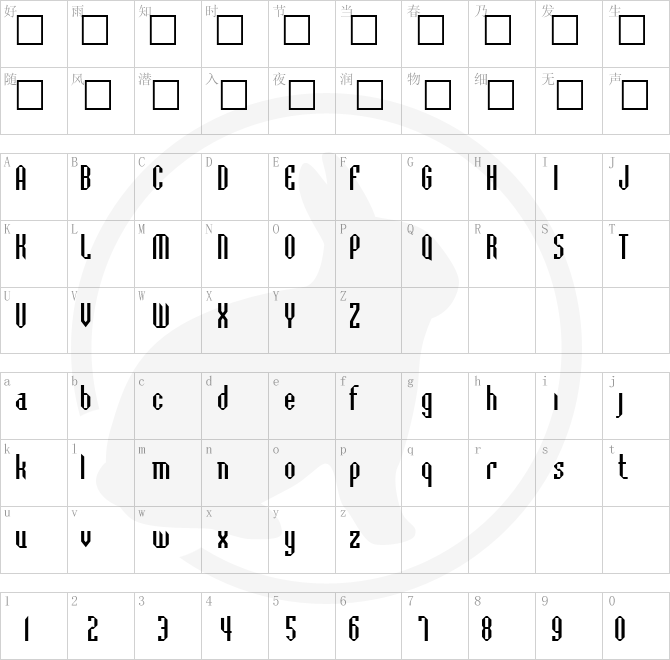
- Font Name:Baccus Bevel
Baccus-Bevel-Regular.ttf is a very beautiful artistic font, Baccus-Bevel-Regular.ttf is widely used in the design and printing of various books and pictures,Baccus-Bevel-Regular.ttf has a strong visual impact,Baccus-Bevel-Regular.ttf is a commonly used font in newspapers, magazines and books, and is used in posters, e-commerce Poster design, store design, logo design, font design and other fields.Baccus-Bevel-Regular.